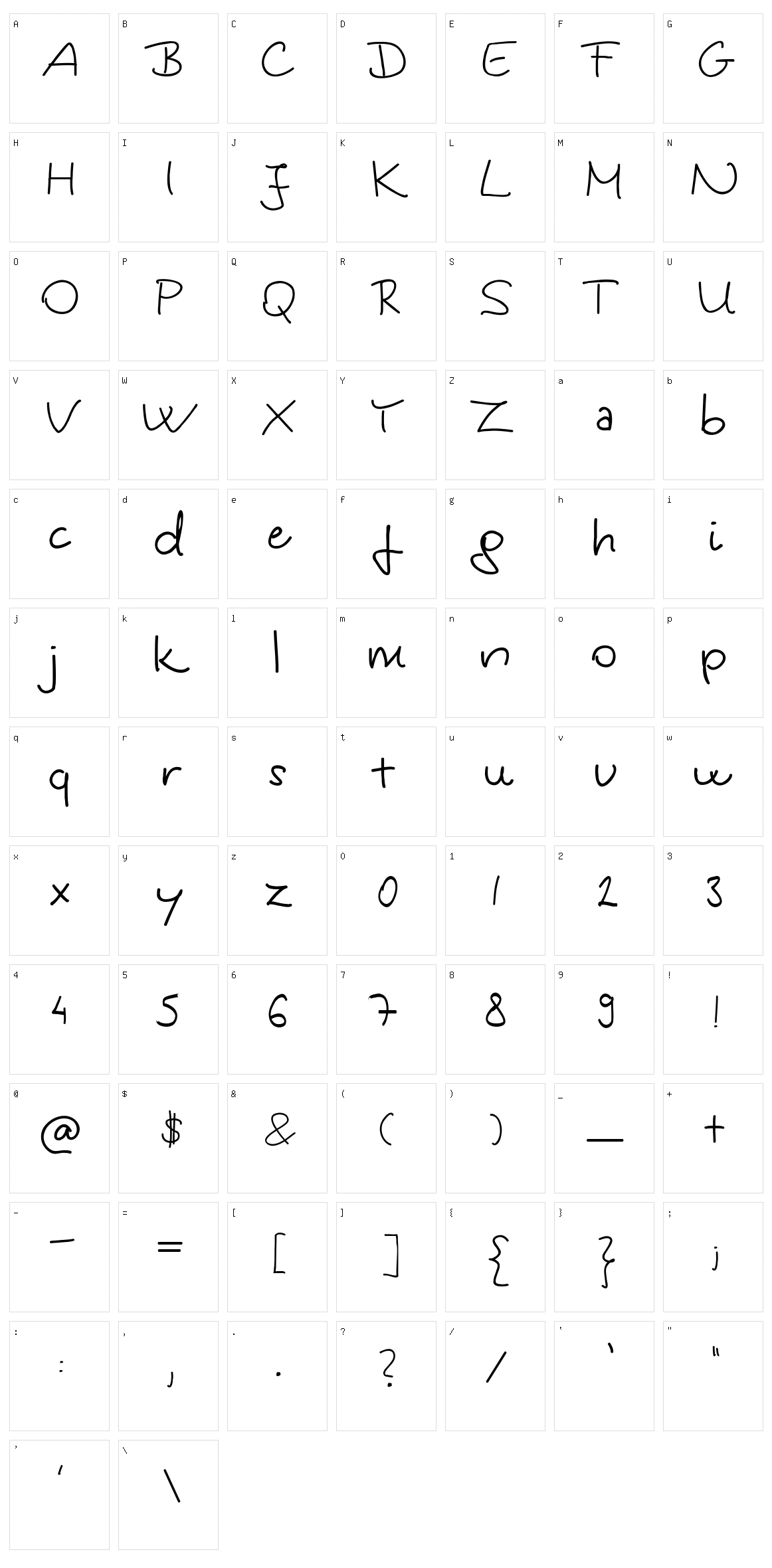
The free font Kinga's handwriting is carefully designed by Roland Huse Design, showcasing a thoughtful balance of creativity and usability and falls under the Script font style. When you download the ZIP file, it contains only 28.23 KB of font files, making it lightweight and quick to download. Please review the license details below to understand permitted usage and distribution rights. If license information is not available, we recommend using this font for personal projects only or contacting the author directly for commercial usage permissions.